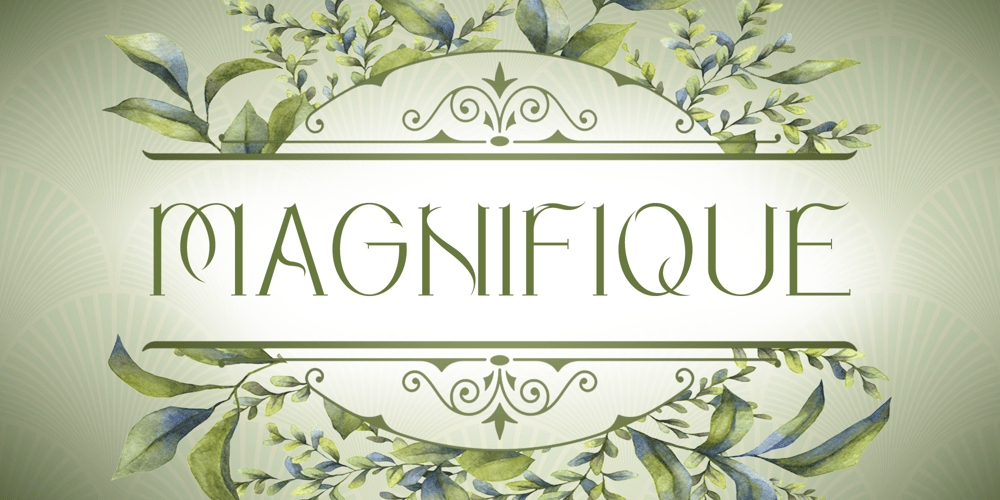
Magnifique Font Family was designed by Joe Hewitt and published by Joe Hewitt Design. Magnifique contains 1 styles and family package options. High Society, upper class and very posh indeed! Magnifique is a modern, elegant, stiff upper lipped serif typeface.Classy, luxurious and opulent, Magnifique is ideal for markets such as fashion, jewellery, perfumes and grand events.The typeface contains uppercase and small caps.The glyph set includes all languages covered in Basic Latin, Latin-1 Supplement and Latin Extended-A scripts.